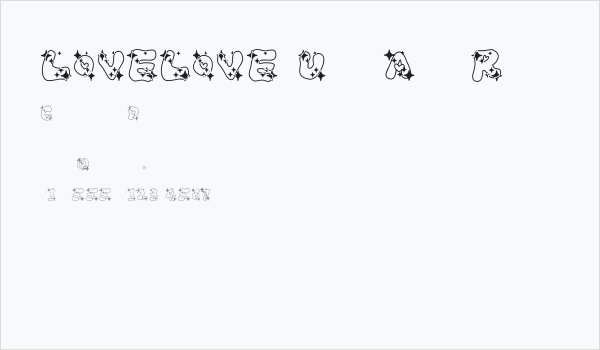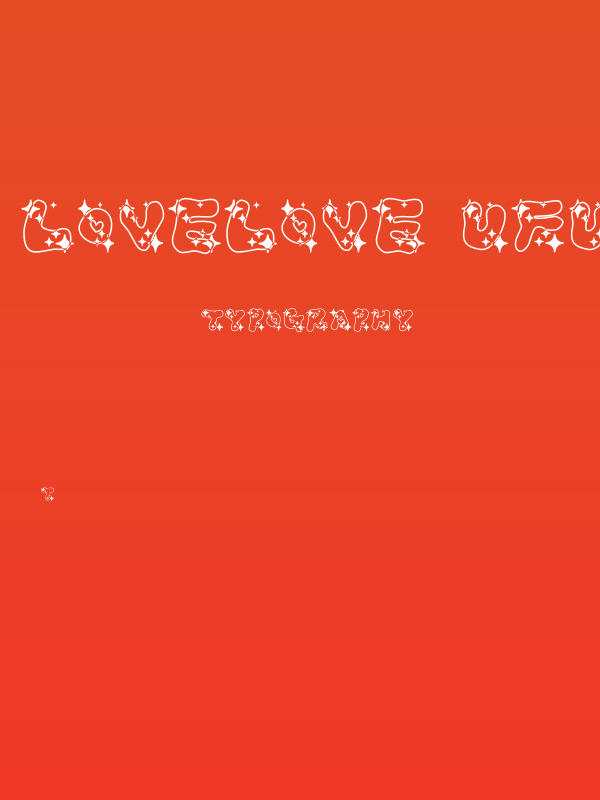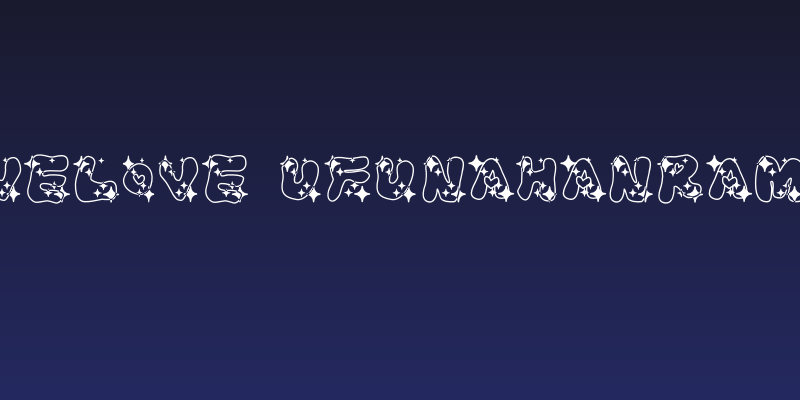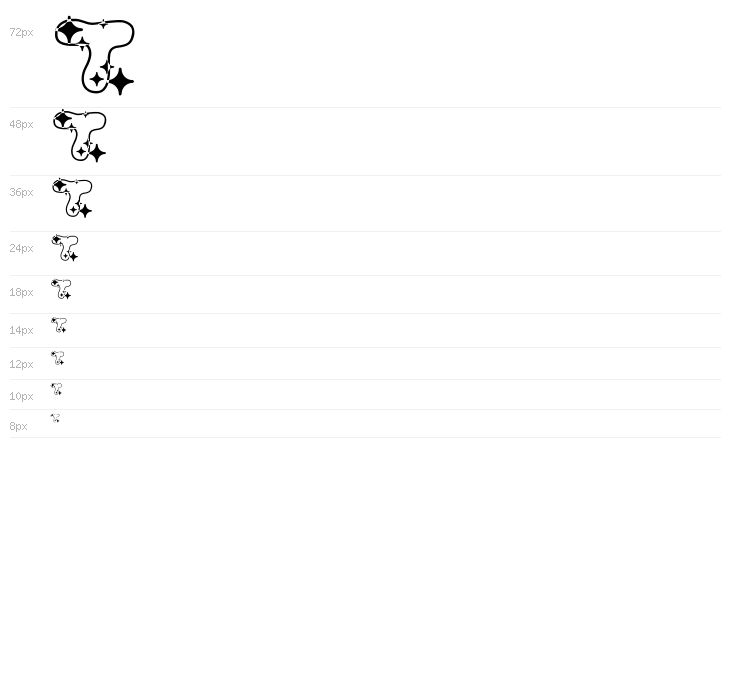
LOVELOVE_UfunAhanRamee Font
LOVELOVE_UfunAhanRamee Description
This playful and decorative font features bold, rounded characters adorned with heart and star motifs, creating a whimsical and romantic feel. The letters are evenly spaced, with a consistent thickness that gives a uniform appearance. The embellishments within each character add a unique charm, making it ideal for projects that require a touch of fun and creativity. The font's style is both eye-catching and engaging, suitable for a variety of uses where a lively and affectionate tone is desired.
| Proposed Projects | Ideal for greeting cards, children's books, party invitations, and playful branding. |